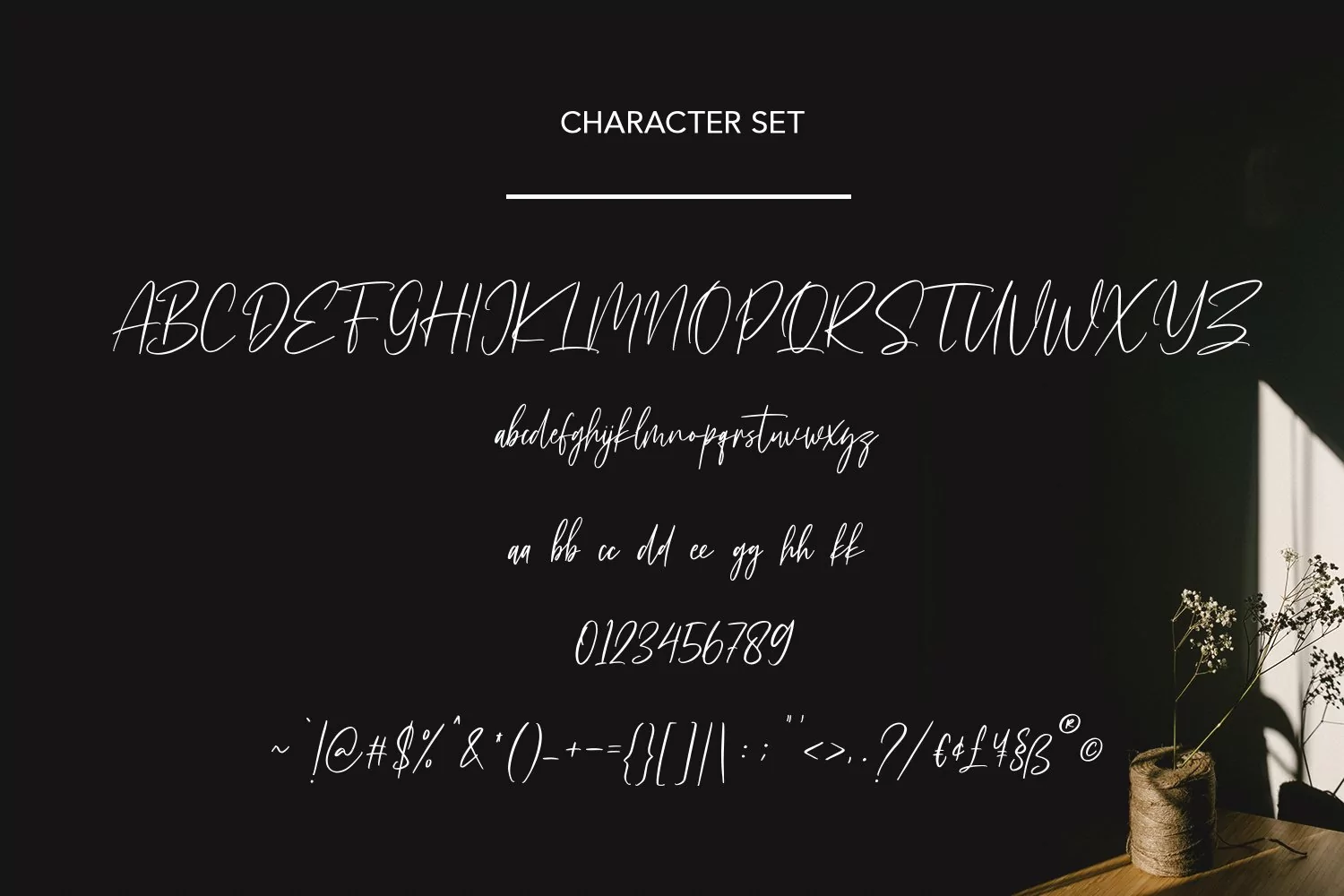
Sallymoores signature script font, with contrast felt-tip stroke, slanted and fun character. It has Opentype features ligatures of character and alternate lowercases, To give you an extra creative work. Sallymoores signature script font support multilingual more than 100+ language. This font is good for logo design, Social media, Movie Titles, Books Titles, a short text even a long text letter and good for your secondary text font with sans or serif. Make a stunning work with Sallymoores font.